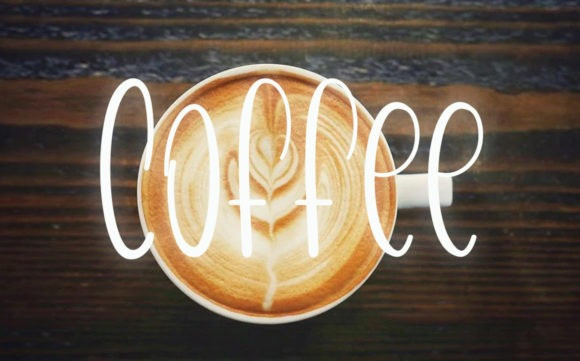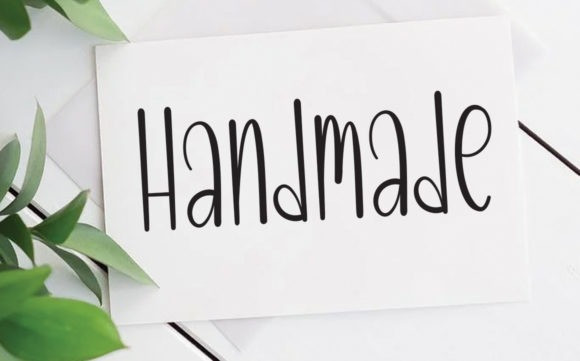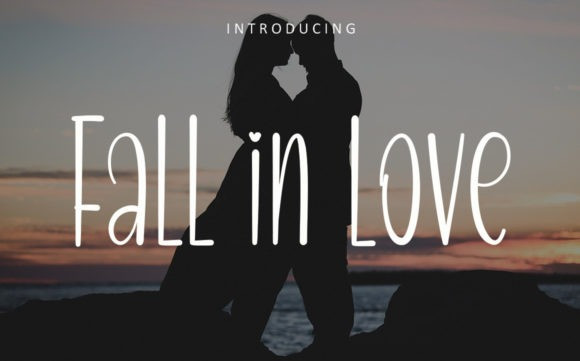
Fall In Love Font
Fall in Love Font is a beautiful and flowing handwritten font. Use it for wall displays, wedding invitations, social media post logos, advertisements, product packaging, product designs, labels, photography, watermarks, invitations, stationery, and any project that requires impressive typography.